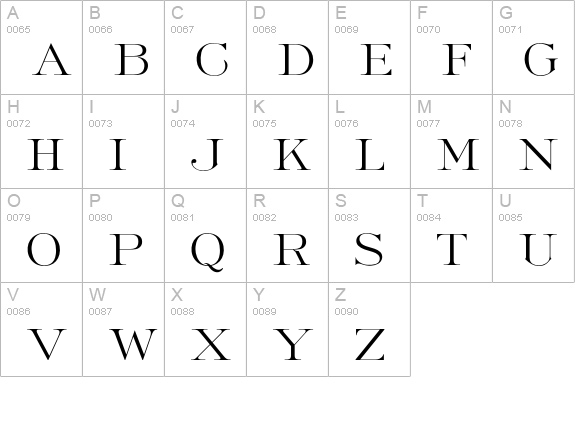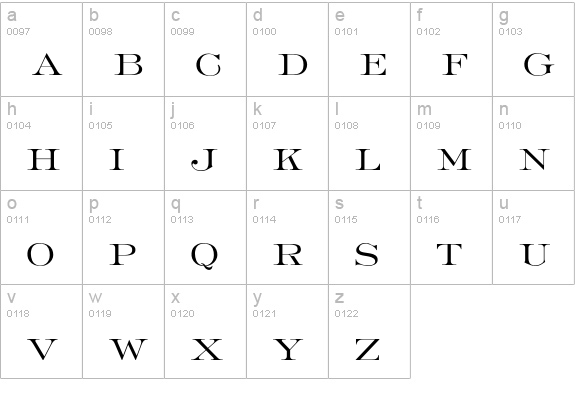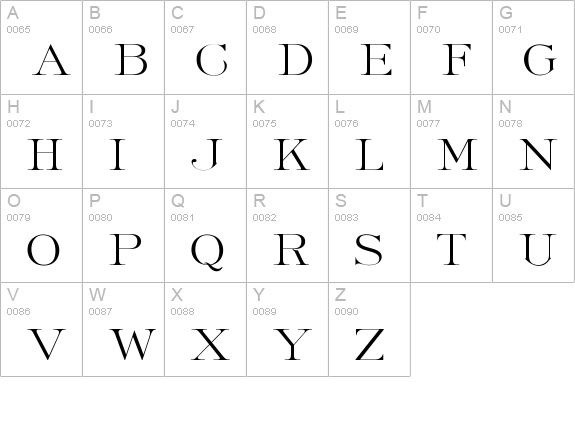
RobertoLight Font Details
Introducing RobertoLight font, a sleek and modern typeface designed to add a touch of sophistication to your projects. With its clean lines and elegant curves, RobertoLight is perfect for a wide range of design applications, from branding to editorial design. This versatile font exudes a sense of modernity and style, making it an ideal choice for any project that requires a contemporary aesthetic. And the best part? RobertoLight is available for free download at FontsMarket.com. So you can easily add this stunning font to your collection without breaking the bank. Whether you're working on a logo, website, or print design, RobertoLight is sure to elevate your work and leave a lasting impression. Download it today and see the difference it can make in your projects!